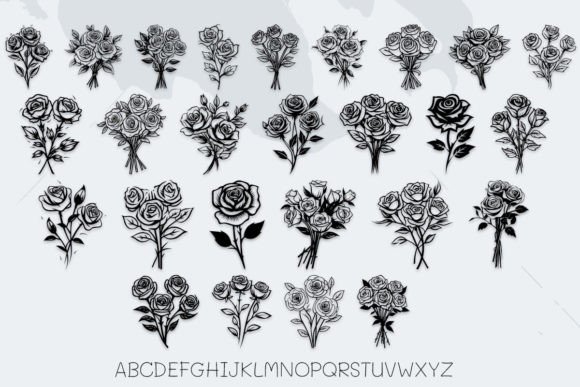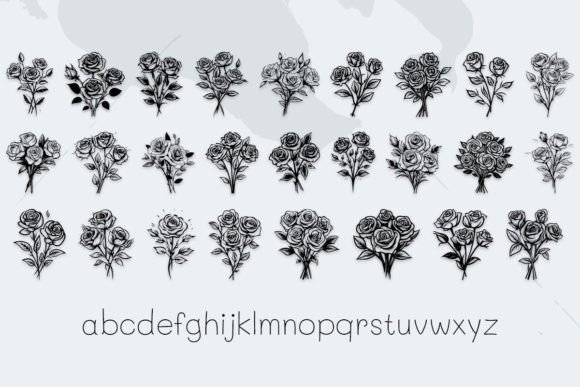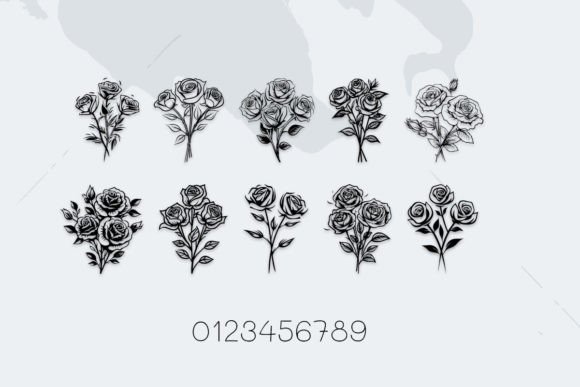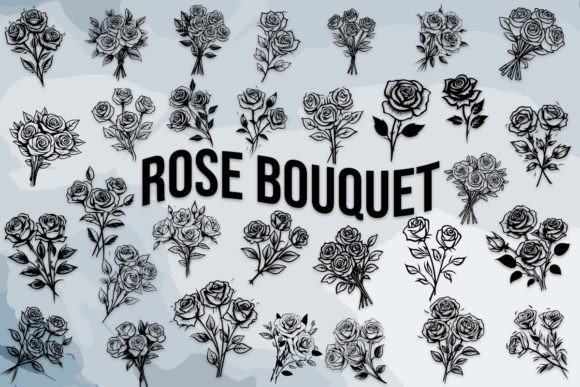
Introduction to Rose Bouquet Font
Rose Bouquet Dingbats: A floral symphony in 26 uppercase, 26 lowercase, and 10 numbers (0-9).
Elevate your design with this romantic blend of blossoms Perfect for a touch of enchantment.
Key Features of Rose Bouquet Font
Why Choose Rose Bouquet Font?
Rose Bouquet Font offers exceptional quality and versatility, making it a valuable addition to your design toolkit. Whether you’re creating for personal projects or commercial use, Rose Bouquet Font delivers professional results.